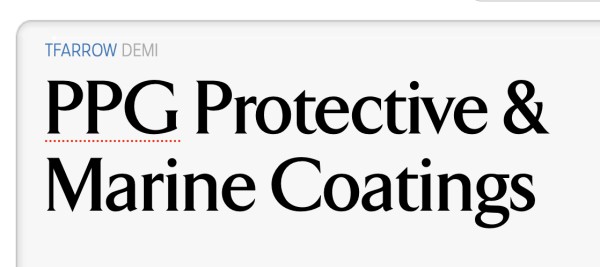
Closest I can find is Arrow—I suspect that PPG uses a customization of it in their branding.
EDIT: Adding a preview of Arrow—the only difference I'm seeing between the ID sample and Arrow is the height of the vertical bar on the G....